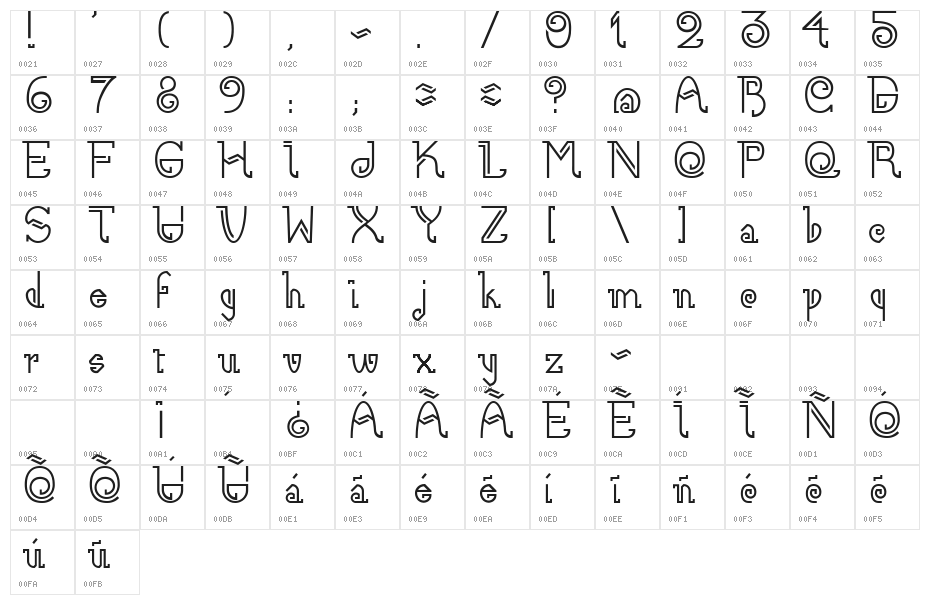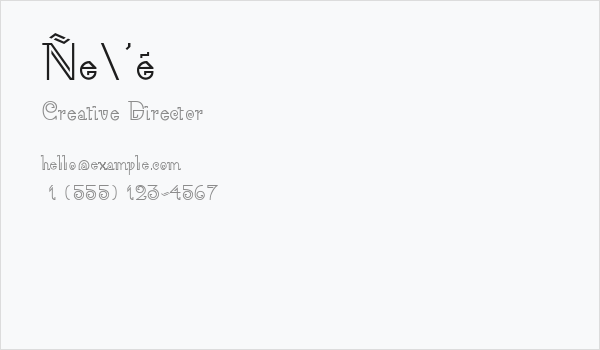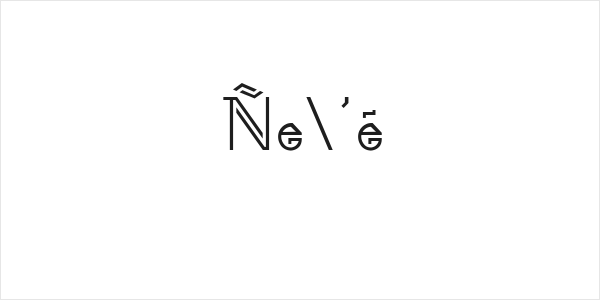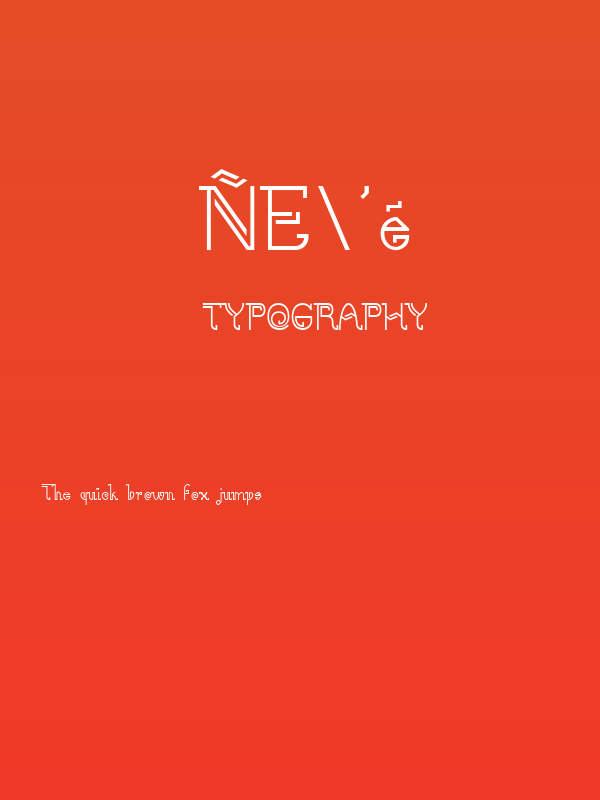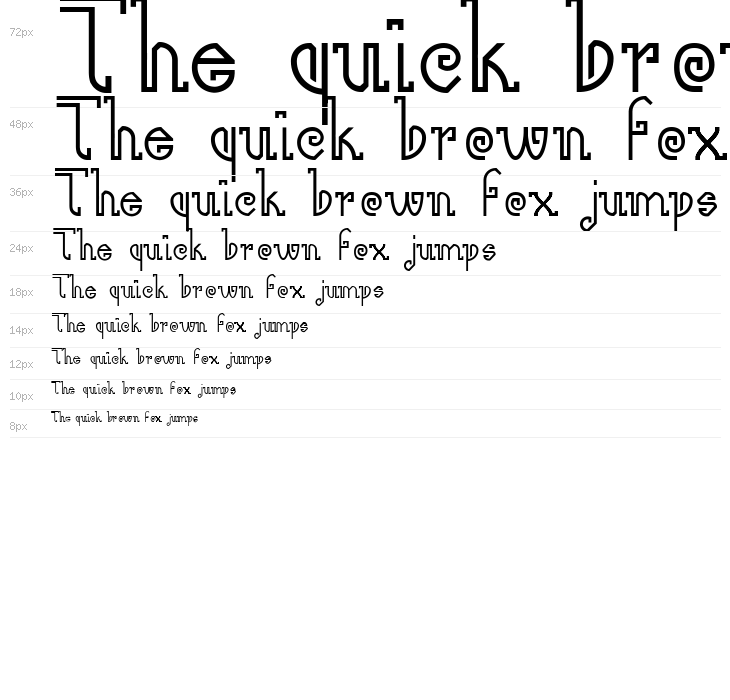
Ñe'ê Font
Ñe'ê Description
This font features a unique and artistic design with a geometric and slightly retro feel. The uppercase letters are characterized by their bold, angular lines and distinctive curves, creating an eye-catching appearance. The lowercase letters maintain a consistent style, with a playful yet structured form. Numbers and special characters follow the same design principles, ensuring a cohesive look across all elements. The font's overall aesthetic is both modern and vintage, making it versatile for various creative projects.
| Overall Style | Modern, Vintage |
| Proposed Projects | Ideal for branding, posters, album covers, and any project requiring a bold, artistic touch. |